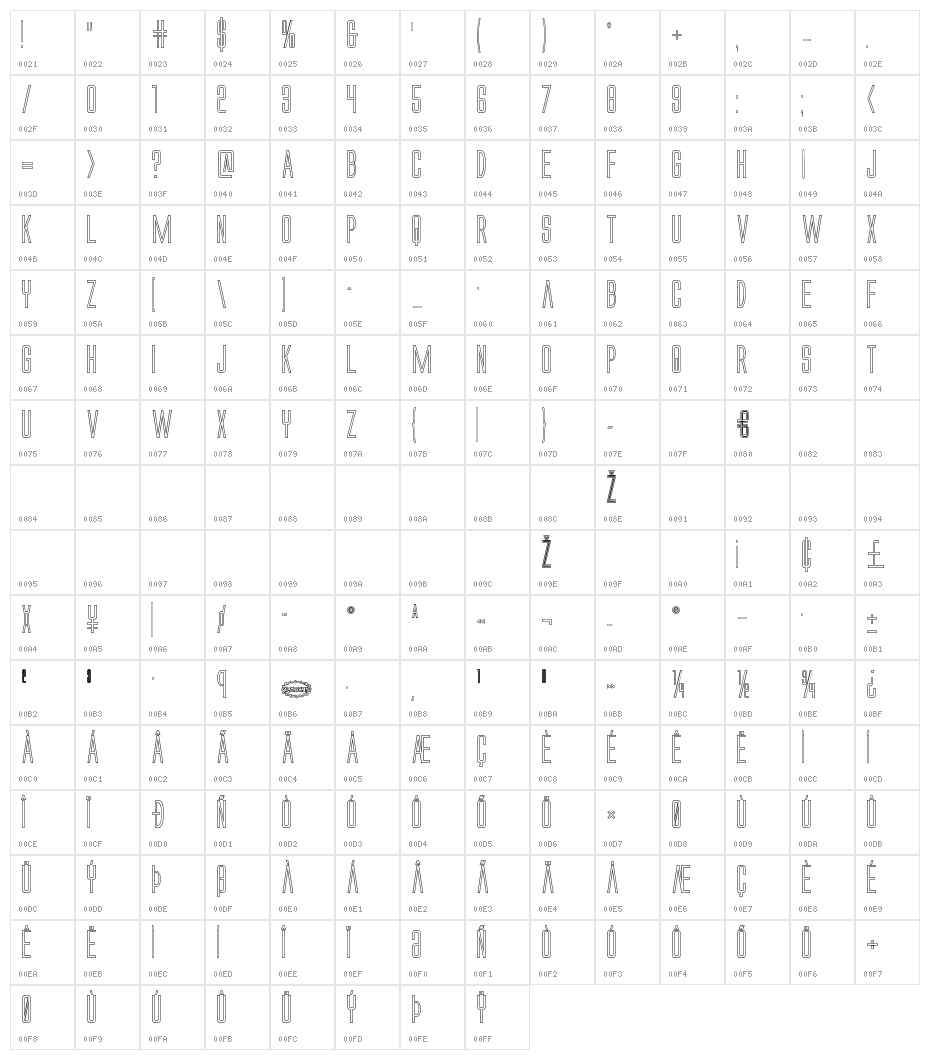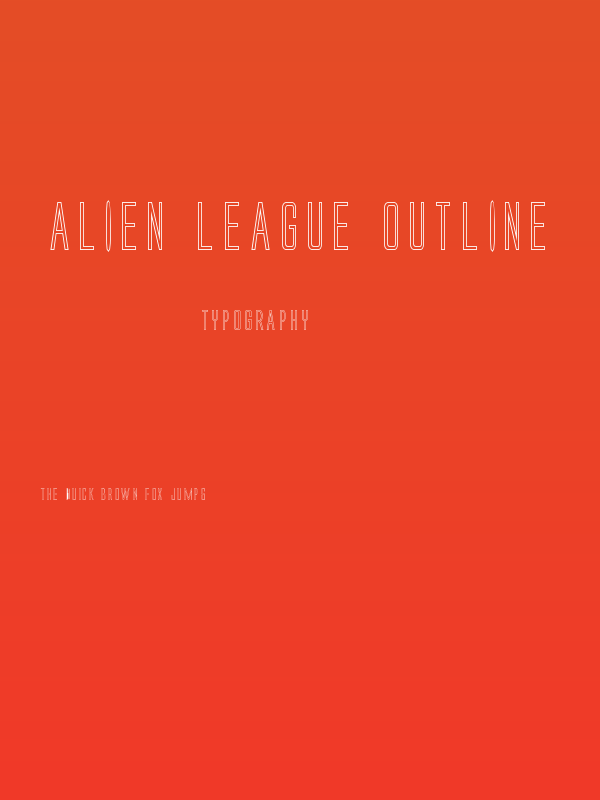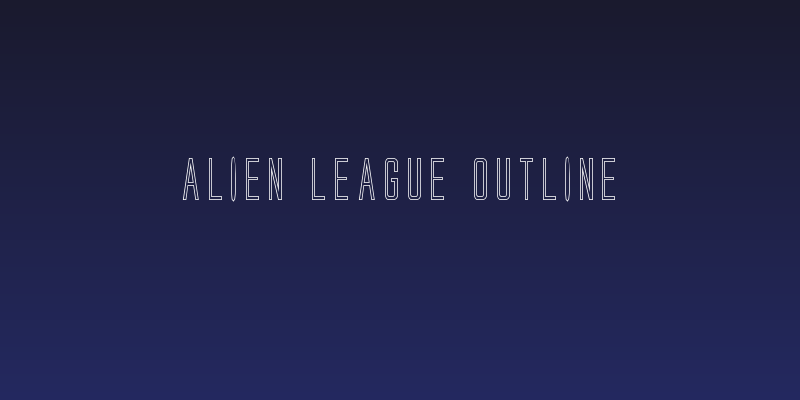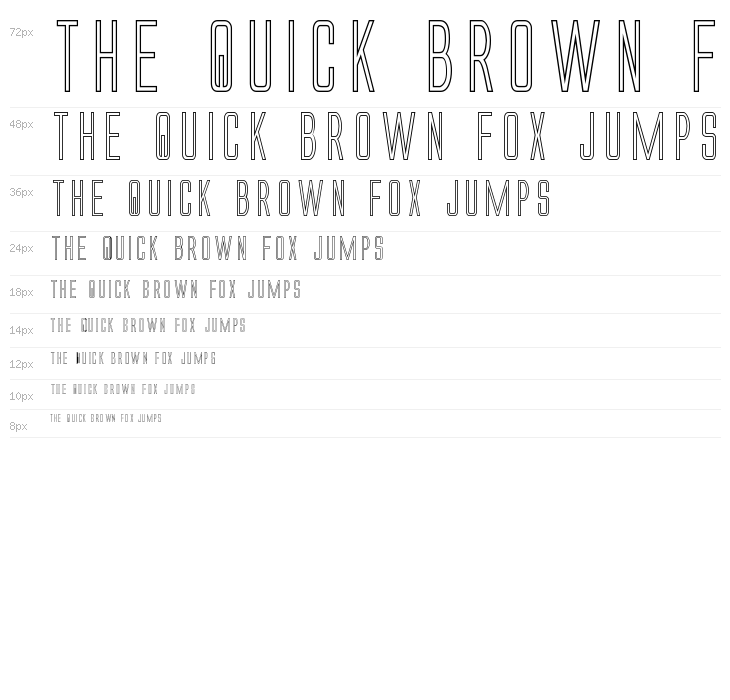
Alien League Outline Font
Alien League Outline Description
This font features a futuristic and geometric design with an outline style that gives it a unique and modern appearance. The characters are tall and narrow, with consistent line thickness that creates a clean and structured look. The uppercase and lowercase letters maintain a uniform height, contributing to the font's sleek and streamlined aesthetic. The numerals and special characters follow the same design principles, ensuring a cohesive appearance across all elements. This font's outline style adds a sense of depth and dimension, making it stand out in various design contexts.
| Proposed Projects | Ideal for sci-fi themed designs, technology branding, posters, and modern digital interfaces. |